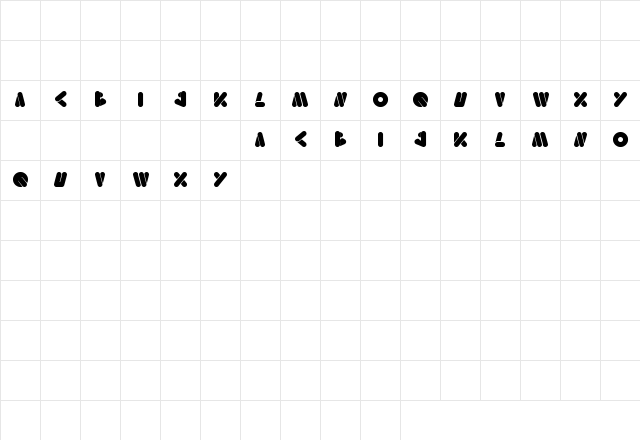
emperor of japan Regular
Design Context for emperor of japan
emperor of japan is a composed and adaptable typeface that performs quietly and consistently across a wide range of design contexts.